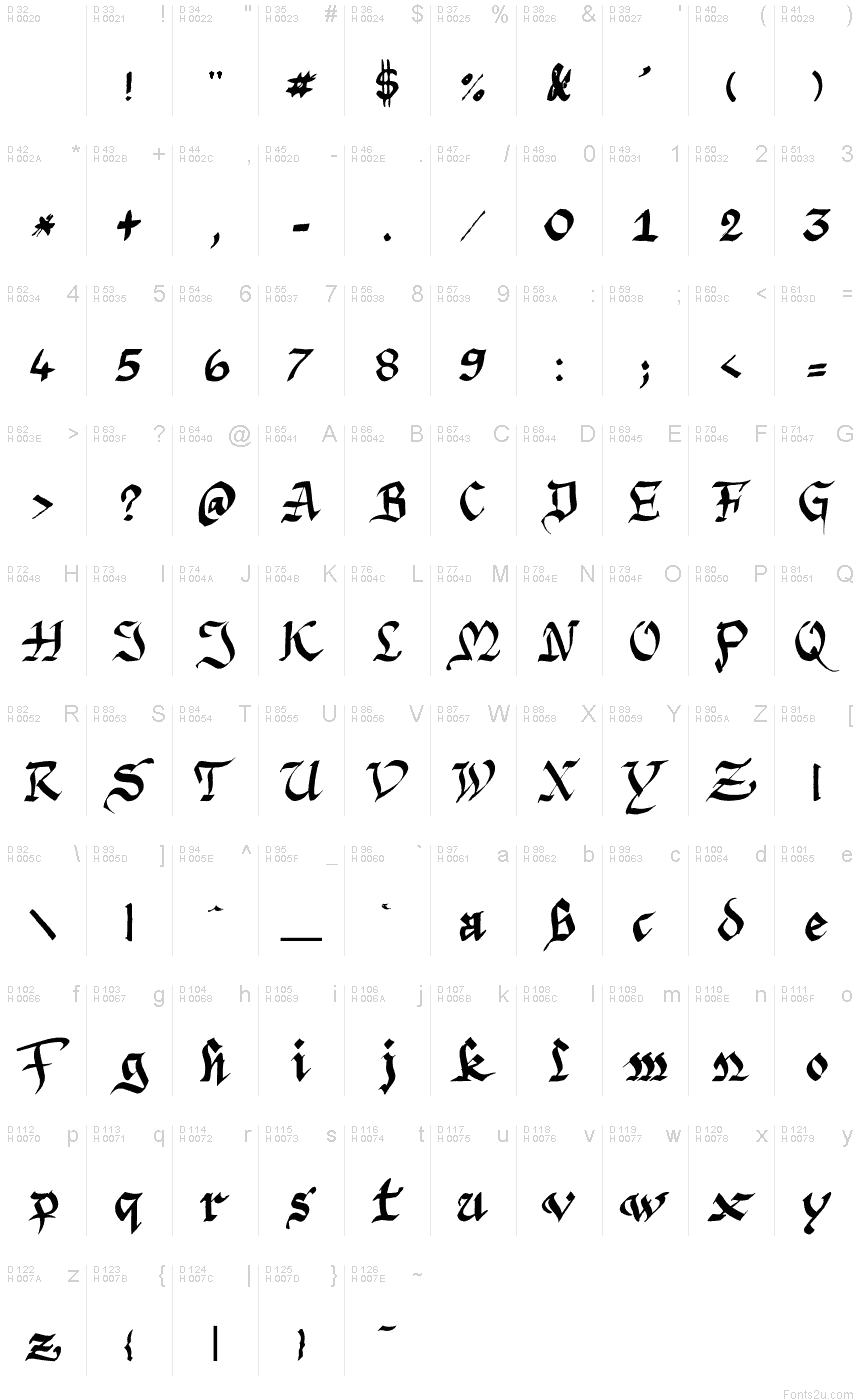
Argor Priht Scaqh
* Principales mises jour : k, n, p, i. (espacements et/ou aspect).
* Main updates : k, n, p, i. (Kerning and/or Shape).
Argor / JPM.
- Voici 1 nouvelle fonte que j'ai cre.
Son nom est en Silarg, langue artificielle que j'ai invente...
"Argor" est le nom d'auteur que je me suis donn.
- "Argor Priht Scaqh" signifie : "Ecriture Primitive de Argor".
REM: Ce caractre : "" transform est utilis pour crer des lettrines dans les fontes
"Argor Got Scaqh", "Argor Flahm Scaqh", "Argor Biw Scaqh", "Argor Cwar Scaqh",
"Argor Brujsh Scaqh" & "Argor Priht Scaqh".
(Utilisez le caractre espace avec diffrentes largeurs avant ou aprs pour mieux y
centrer un caractre l'intrieur)...
- Here is 1 new font I've created.
Its name is in Silarg, an artificial language I've invented...
"Argor" is the author name I've chosen.
- "Argor Priht Scaqh" means : "The Primitive Writing of Argor".
REM: This type: "" redesigned is used in "Argor Got Scaqh", "Argor Flahm Scaqh",
"Argor Biw Scaqh", "Argor Cwar Scaqh", "Argor Brujsh Scaqh" & "Argor Priht Scaqh".
to a special use: for Head Letters put on "squares" (Use a blank size appropriated to
center the character inside it, before and/or after)...